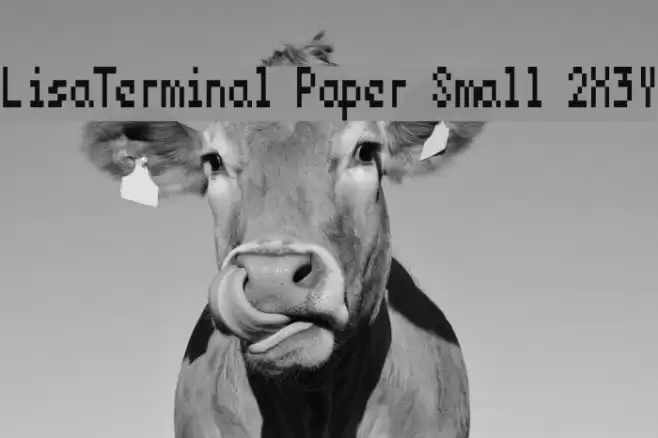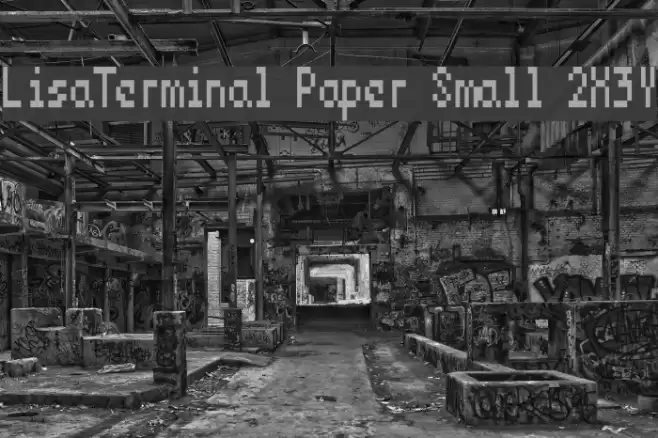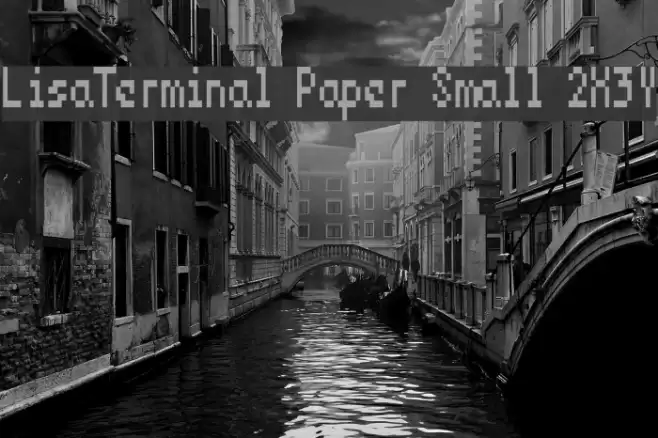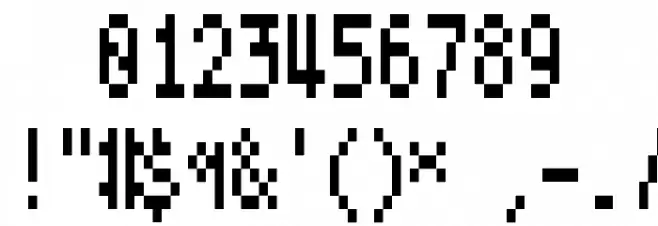
LisaTerminal Paper Small 2X3Y Font
LisaTerminal Paper Small 2X3Y Description
This font features a pixelated, monospaced design reminiscent of early computer displays and dot matrix printers. Each character is composed of a grid of square pixels, giving it a distinctly retro and digital appearance. The uniformity in character width ensures a consistent and orderly look, ideal for technical or nostalgic themes. The uppercase and lowercase letters maintain a similar height, enhancing readability in small sizes. The numerals and special characters are crafted with the same pixelated precision, making them easily distinguishable.
A pixelated, monospaced font with a retro digital style from Uncategorized fonts.
- Proposed Projects: Ideal for retro-themed designs, coding environments, digital art projects, and video game interfaces.